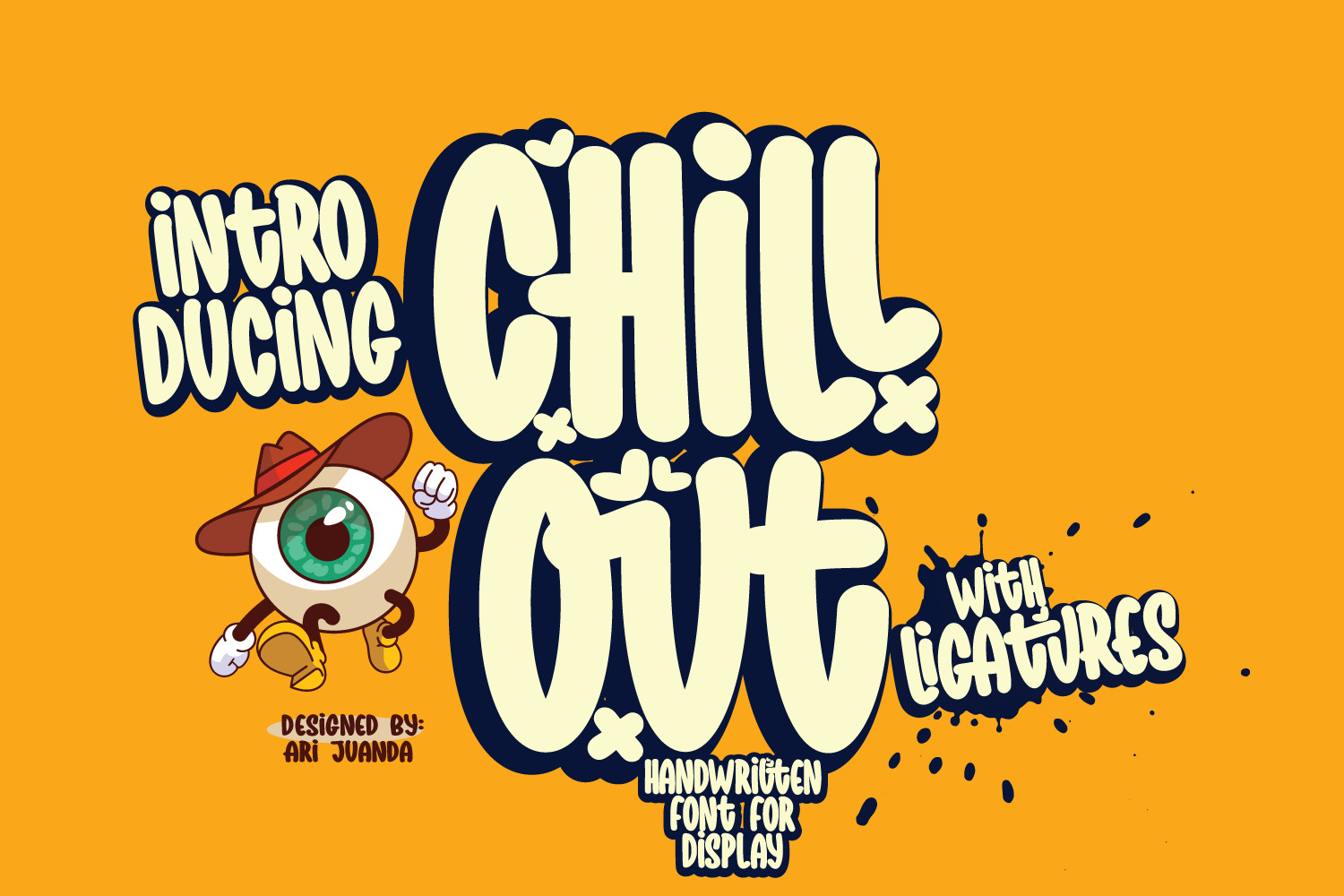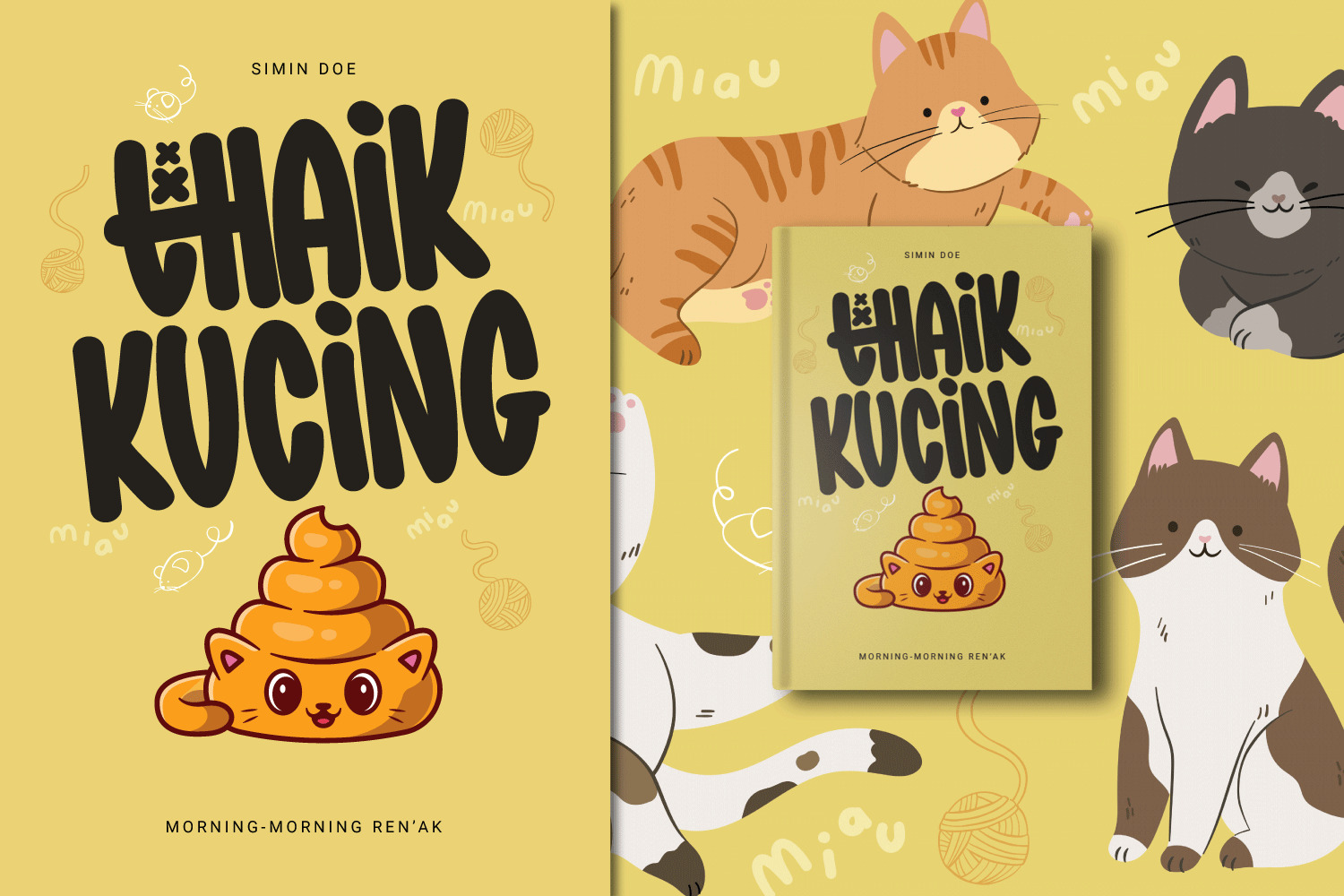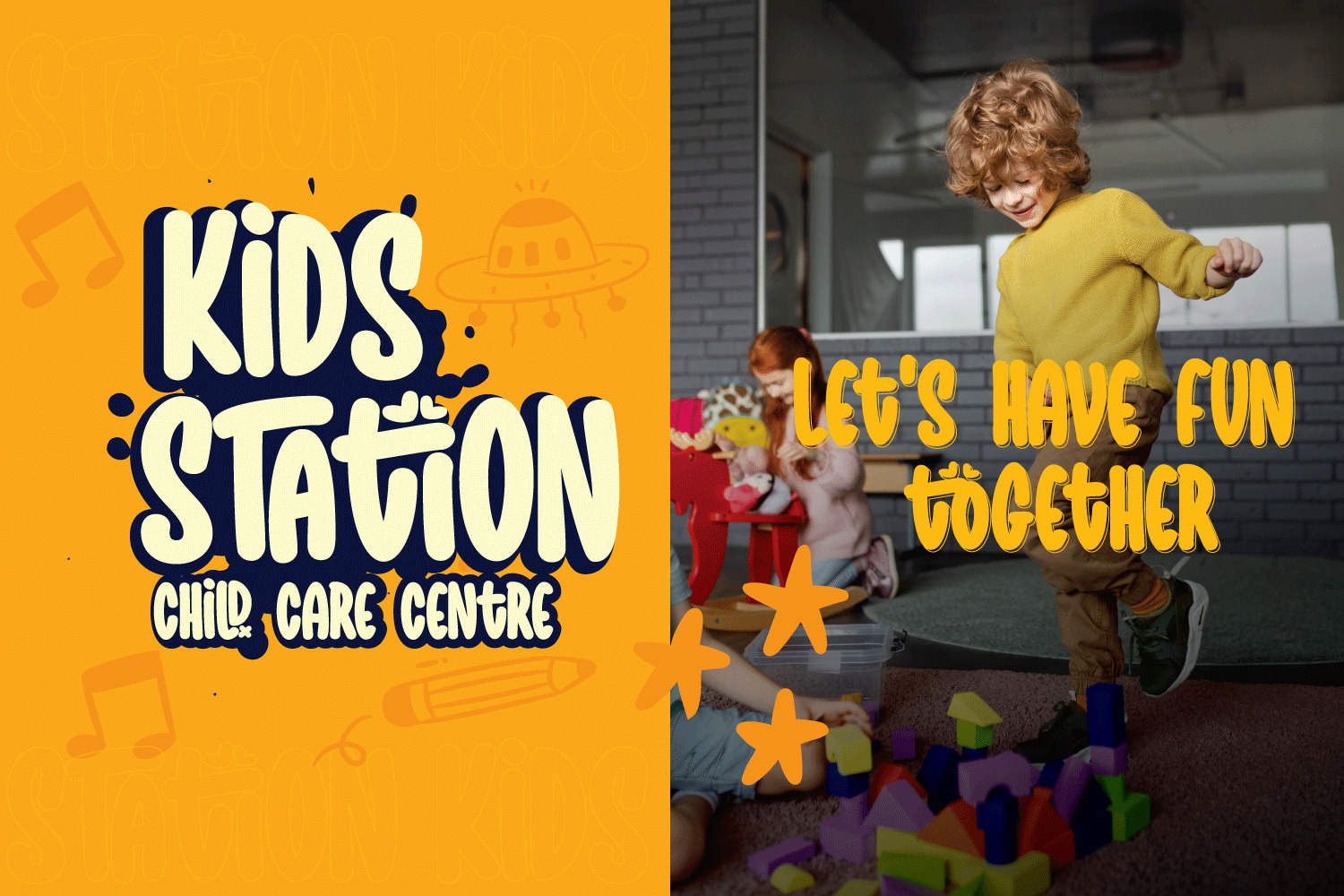
Chill Out Font
introducing "Chill Out" – A Playful Display Font
Get ready to infuse your projects with an extra dose of whimsy and charm with our latest creation, "Chill Out." This adorable display font is designed to bring a touch of fun to your creative endeavors, drawing inspiration from the delightful world of cute cartoon animation films, bold graffiti, and the innocent joy of childhood.
Cuteness Overload: "Chill Out" is your go-to font for injecting a playful and adorable vibe into your designs. Each letter is crafted with a delightful charm that is sure to captivate audiences of all ages.
Graffiti Boldness: Borrowing from the world of bold graffiti, "Chill Out" makes a statement with its confident and eye-catching letterforms. This font isn't afraid to stand out and add a splash of personality to any project.
Childlike Wonder: Inspired by the imaginative and innocent world of children, this font captures the essence of carefree creativity. It's perfect for projects aimed at the young and the young at heart.
Versatile Usage: Whether you're designing invitations, crafting children's books, or working on any creative project that needs a touch of whimsicality, "Chill Out" is a versatile font that adapts effortlessly to various contexts.
Perfect For:
Children's Books and Illustrations
Invitations and Greeting Cards
Playful Branding and Logos
Kid-Friendly Websites and Apps
Creative Projects Demanding a Dash of Cuteness